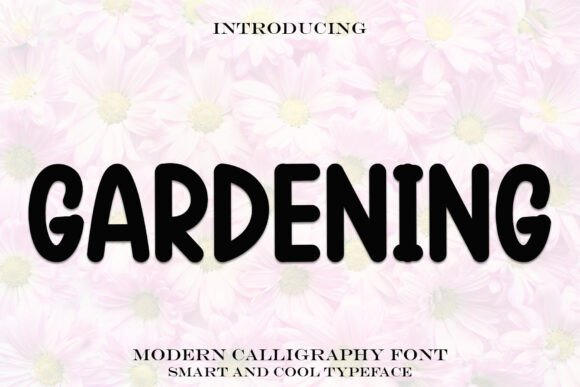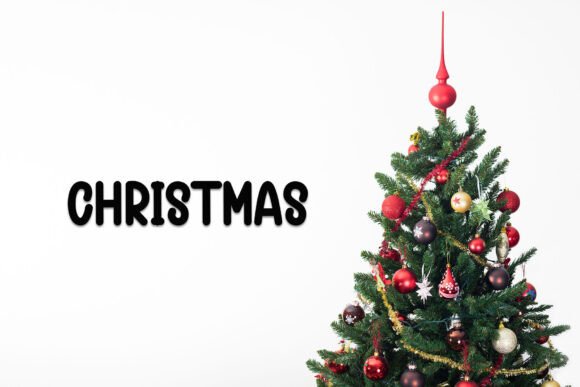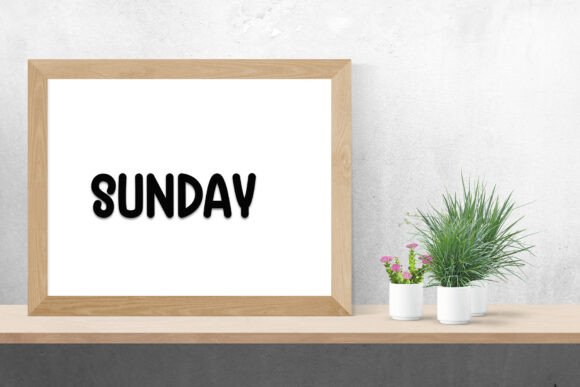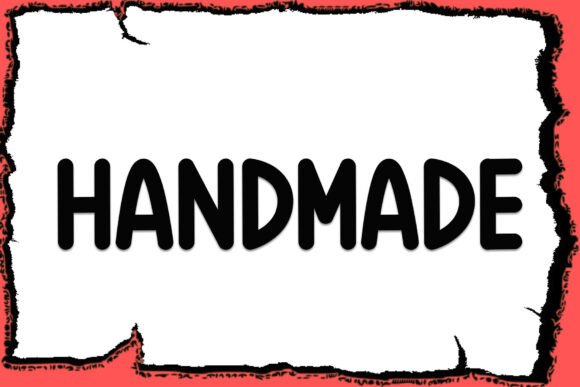
Gardening Font: A Playful Display Font for Cute Branding & Cricut Crafts
About the Gardening Font
Discover the charm of Gardening Font. This font is a perfect blend of modern aesthetics and classic appeal. It is a fun and expressive display font designed to make your creative ideas stand out. With its bold, rounded letters and friendly personality, it’s perfect for eye-catching headlines, kids-themed projects, packaging, branding, and more. Whether you’re designing for print or digital, Rounce brings a playful energy that’s hard to miss.
Gardening Font’s playful energy makes it ideal for headlines, branding projects needing a friendly touch, and packaging for products aimed at children or a younger demographic. It also works well in short, impactful statements on posters or social media graphics. However, its bolder forms make it less suitable for body text or lengthy paragraphs, and its informal nature might clash with more serious or corporate contexts. Avoid using it in UI design where legibility at small sizes is crucial.
To complement its rounded forms and cheerful nature, consider pairing Gardening Font with a clean sans-serif like Open Sans for body copy, or a more geometric sans-serif like Montserrat for a modern contrast. For a touch of elegance, a delicate script font such as Great Vibes could work well in supporting text. Avoid pairing it with overly ornate or heavy fonts that might visually compete with its playful character.
The overall personality of Gardening Font is best described as friendly, approachable, and playful, making it an excellent choice for brands wanting to project a warm, inviting image.
Gardening Font Usage Examples
Gardening Font Example